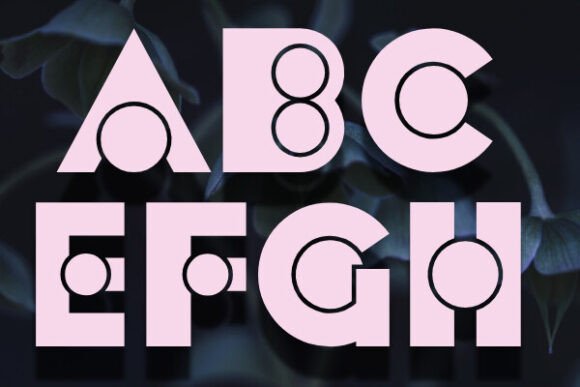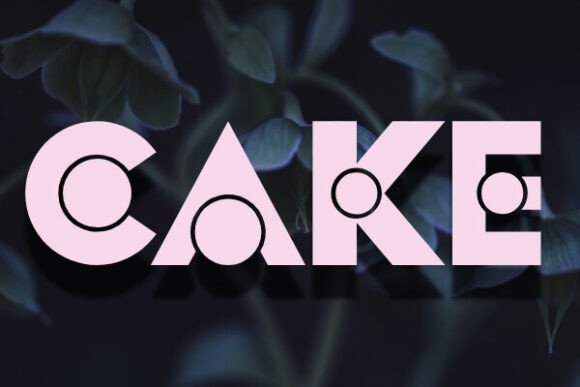
Introduction to Festa Font
Have you ever been brainstorming ideas for a creative project, and the perfect font just pops into your mind? For designers, this moment is a game-changer. It’s the spark that sets the entire design process ablaze, and we’re excited to share with you a font that will ignite your imagination – the Festa Font.
This high-quality decorative typeface is a design resource that will elevate your posters, flyers, and t-shirts to the next level. With its free download option, you can experiment with the Festa Font on your creative project without any limitations. Plus, its transparent background makes it a versatile choice for any design.
Whether you’re working on a personal or professional project, the Festa Font is an invaluable asset that will take your design to new heights. In this article, we’ll delve into the world of this amazing font and show you why it’s a must-have for any designer.
Festa Font Key Features
- High-quality design resource suitable for creative projects, available for free download
- Unique and stylish font design with a transparent background, ideal for modern and elegant applications
- Comes in a single weight, making it easy to use in a variety of creative projects, from logos to typography
- Designed with a high resolution of 300 DPI, ensuring crisp and clear text rendering
- Perfect for use in digital design, including websites, social media, and mobile applications
Honest Review: Festa Font
I recently had the chance to work with the Festa Font, a high-quality design resource that I was eager to put to the test. Overall, I was impressed with the font’s performance and versatility.
- The font’s transparent background allows for seamless integration into creative projects, giving designers the flexibility they need.
- The high-quality design of the font makes it perfect for use in a variety of applications, from print to digital media.
- The font’s limited character set may not be suitable for designers who require a wide range of glyphs.
- The font’s bold weight may not be as crisp as some designers may prefer.
Overall, I was pleased with the Festa Font’s performance and would recommend it to designers looking for a high-quality, free download. While it may have some limitations, it is a solid choice for creative projects that require a clean and modern aesthetic.
Festa Font
Festa Font is a high-quality design resource perfect for your creative project. With a transparent background, it’s easy to use and customize in your favorite design software.
Getting the Most Out of Festa Font
For the best results, use Festa Font in conjunction with other design elements that match its style and tone. Experiment with different font sizes and colors to create a unique look.
Festa Font is perfect for wedding invitations, birthday party invitations, and other festive occasions. It’s also great for branding and marketing materials, such as brochures and flyers.